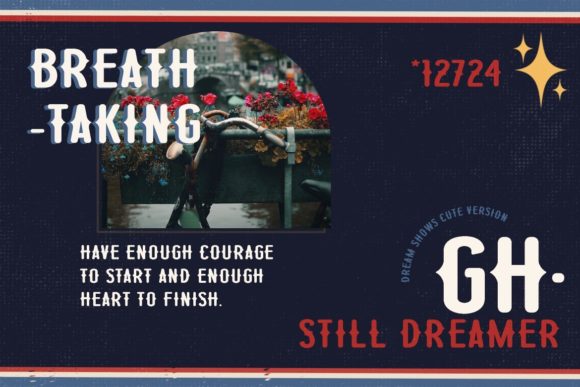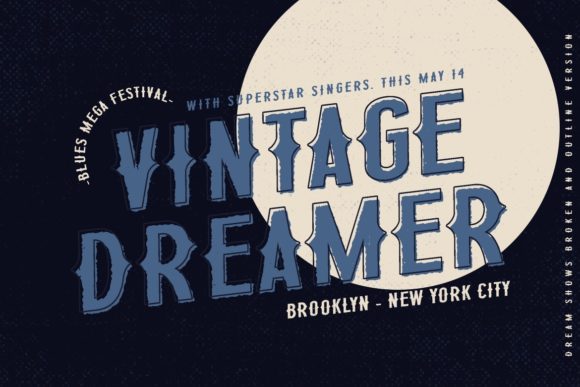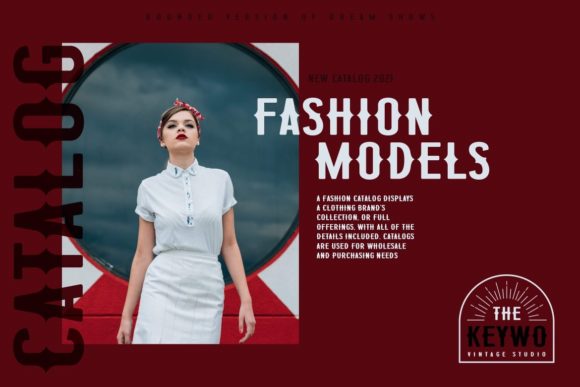
Introduction to Dream Shows Font
Dream Shows is a cool, bold and thick lettered display font.
Why Choose Dream Shows Font?
Dream Shows Font offers exceptional quality and versatility, making it a valuable addition to your design toolkit. Whether you’re creating for personal projects or commercial use, Dream Shows Font delivers professional results.